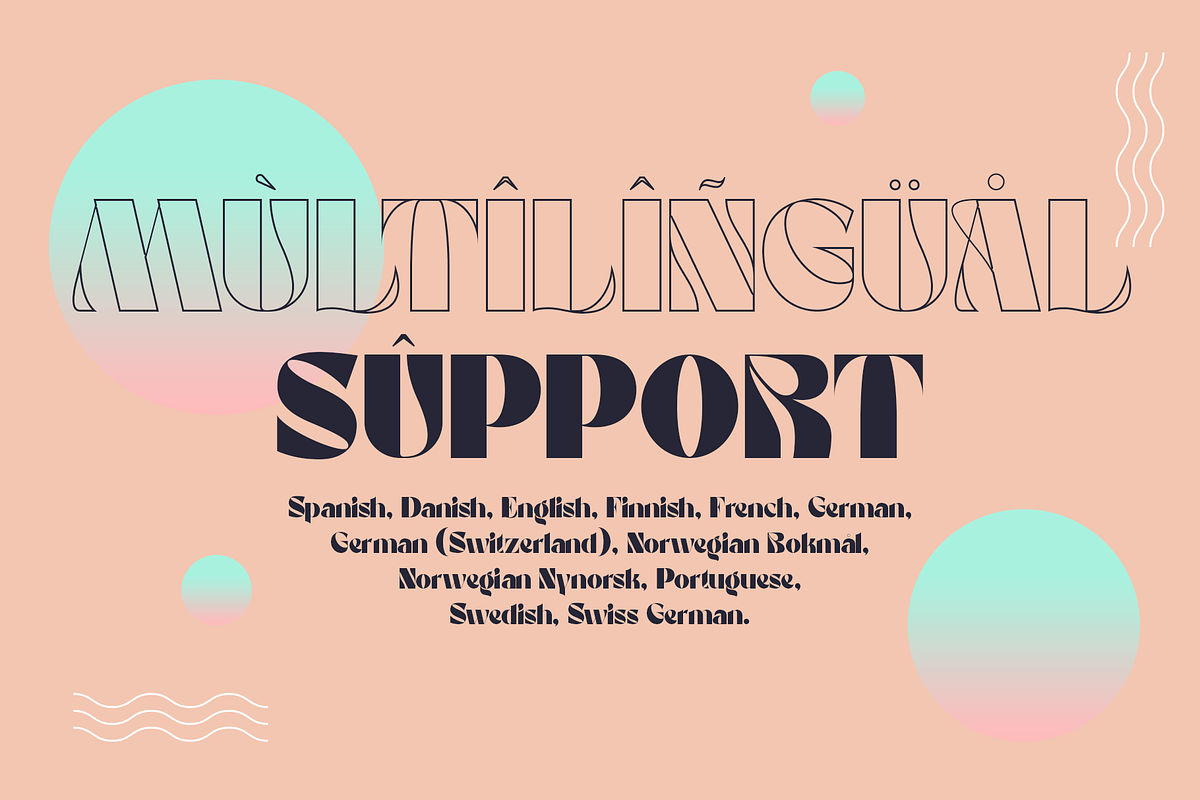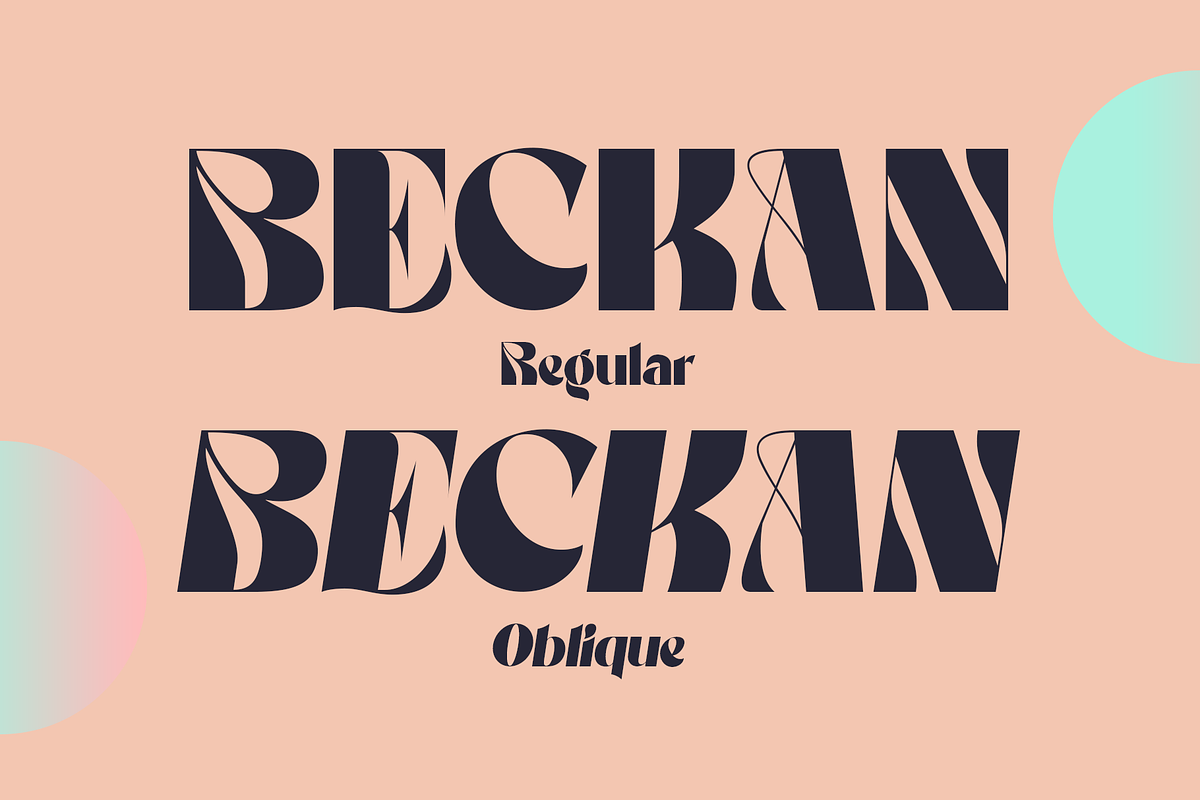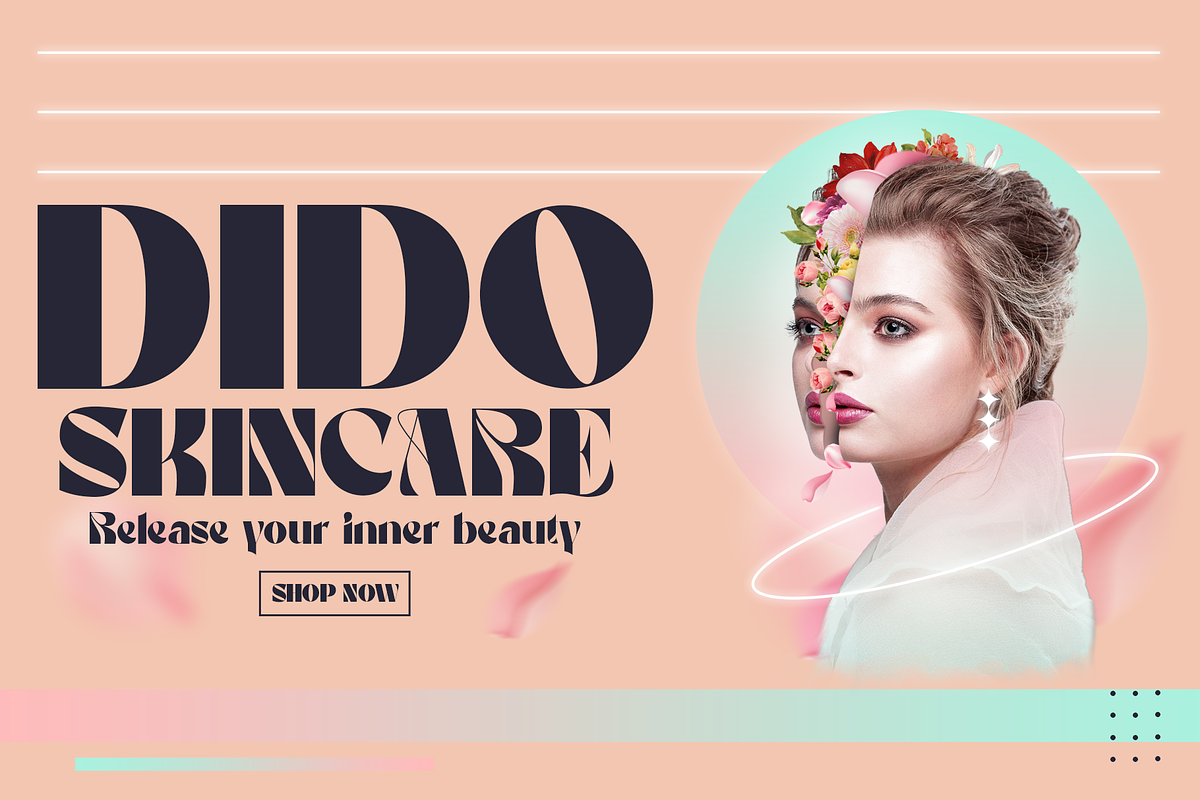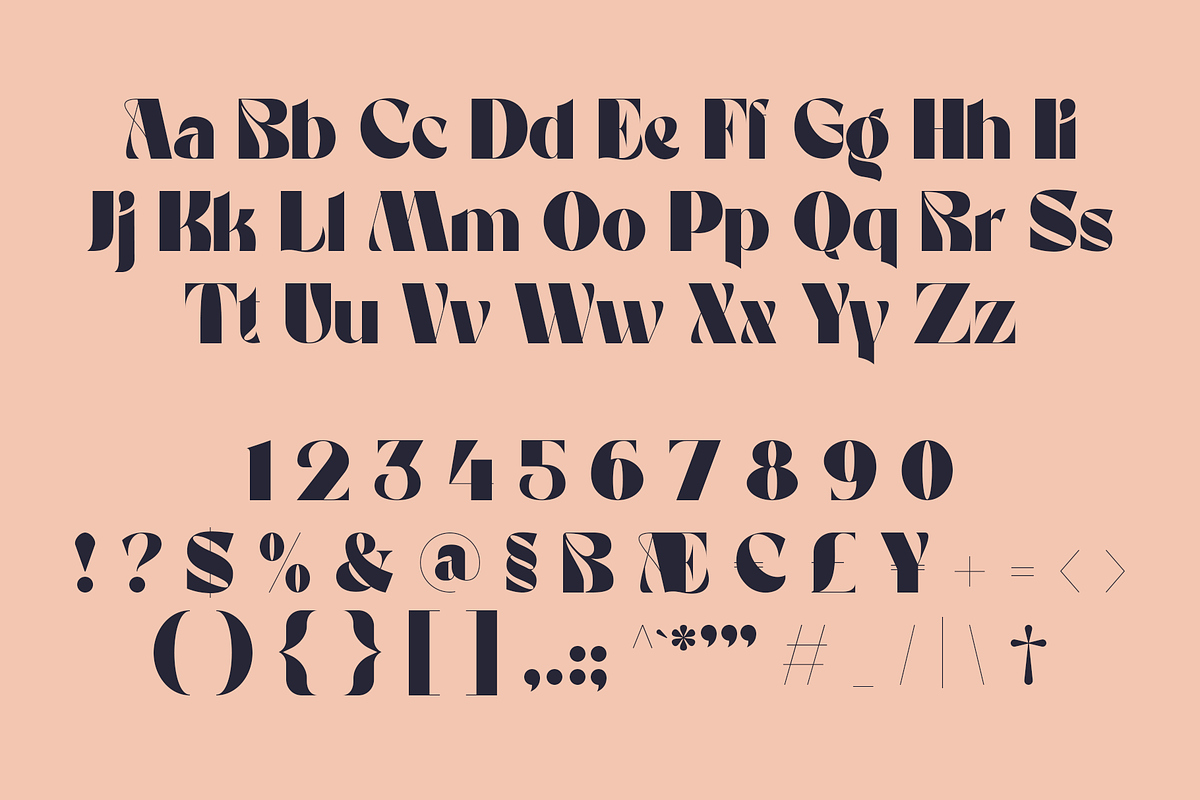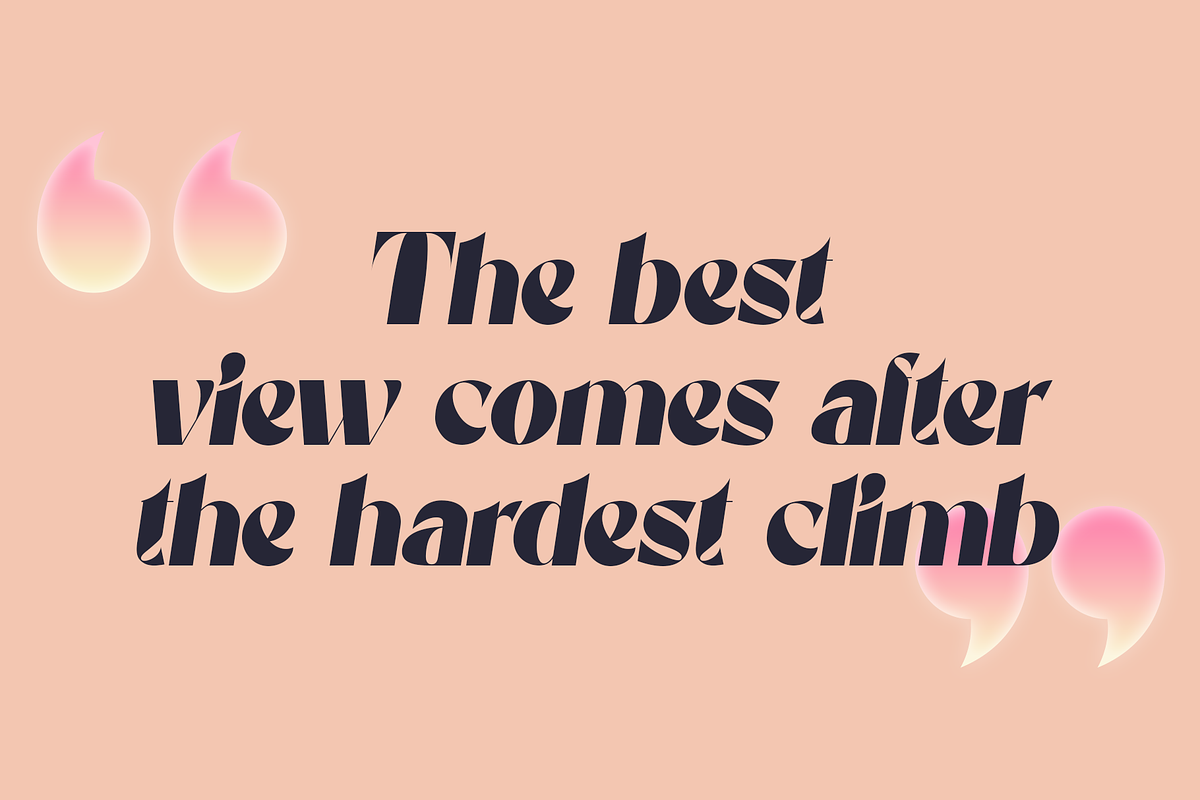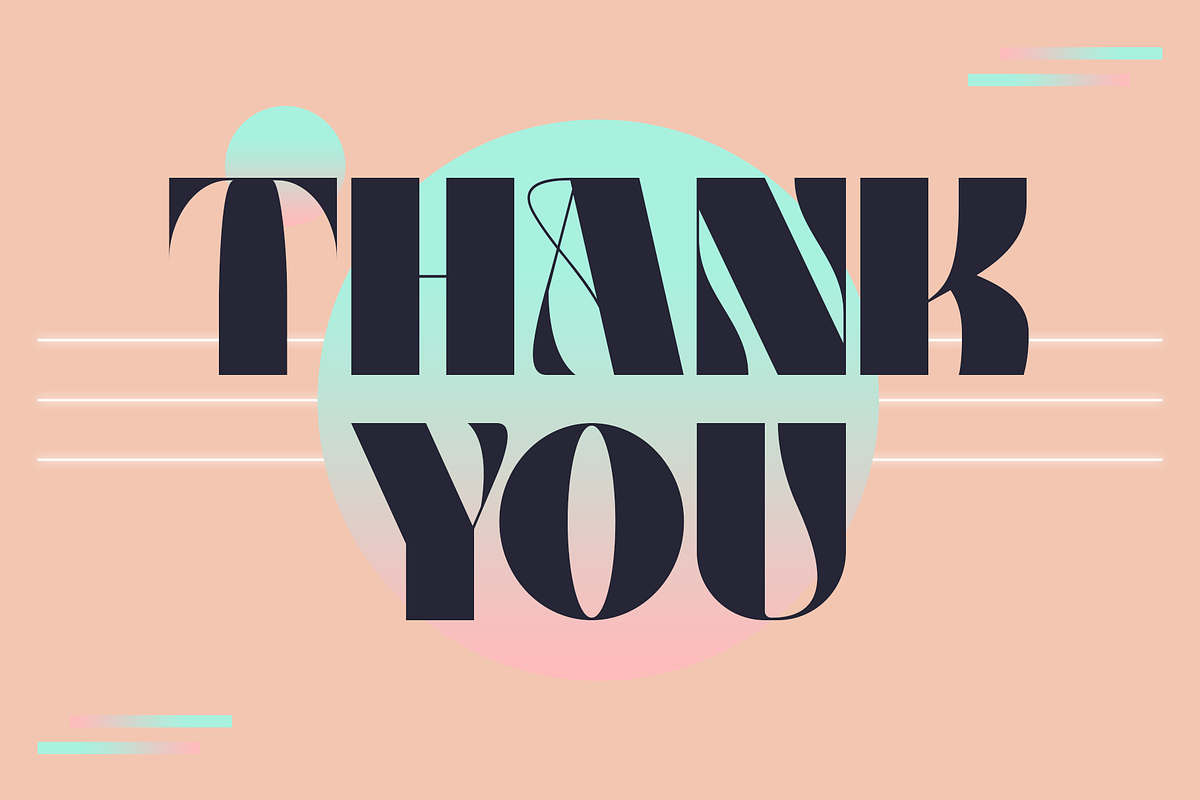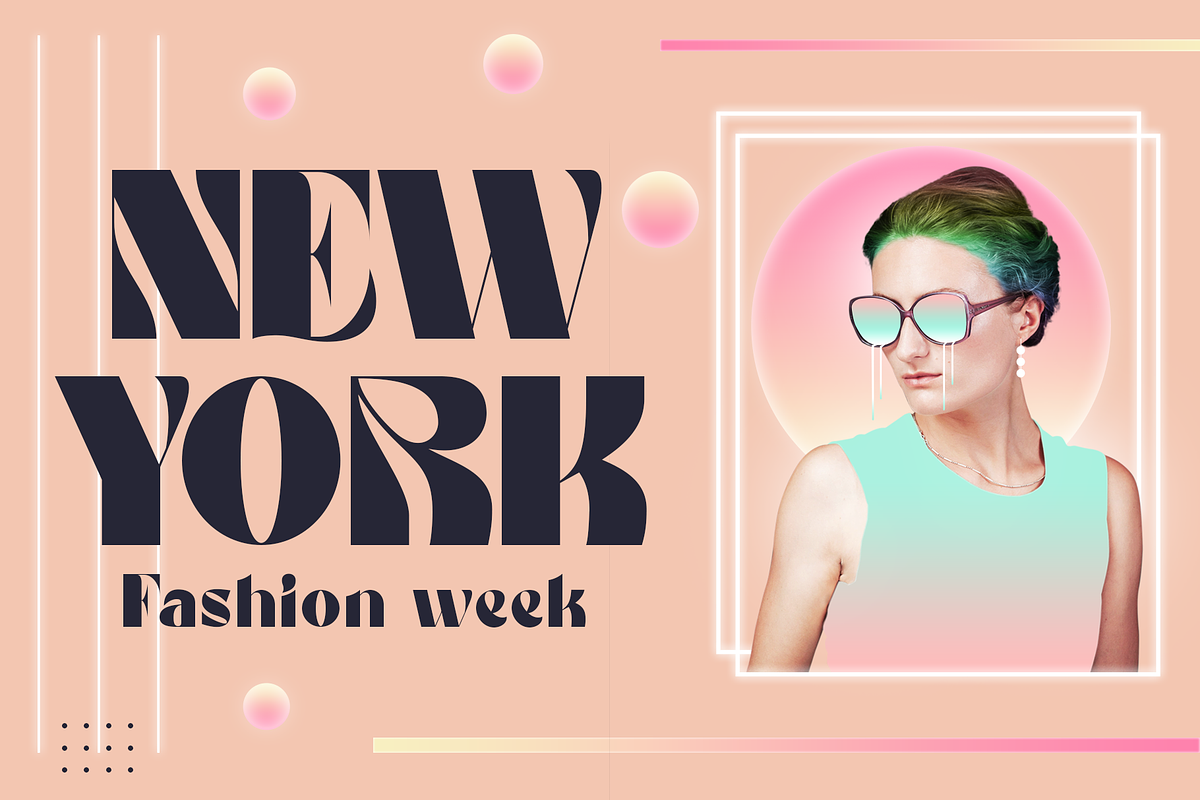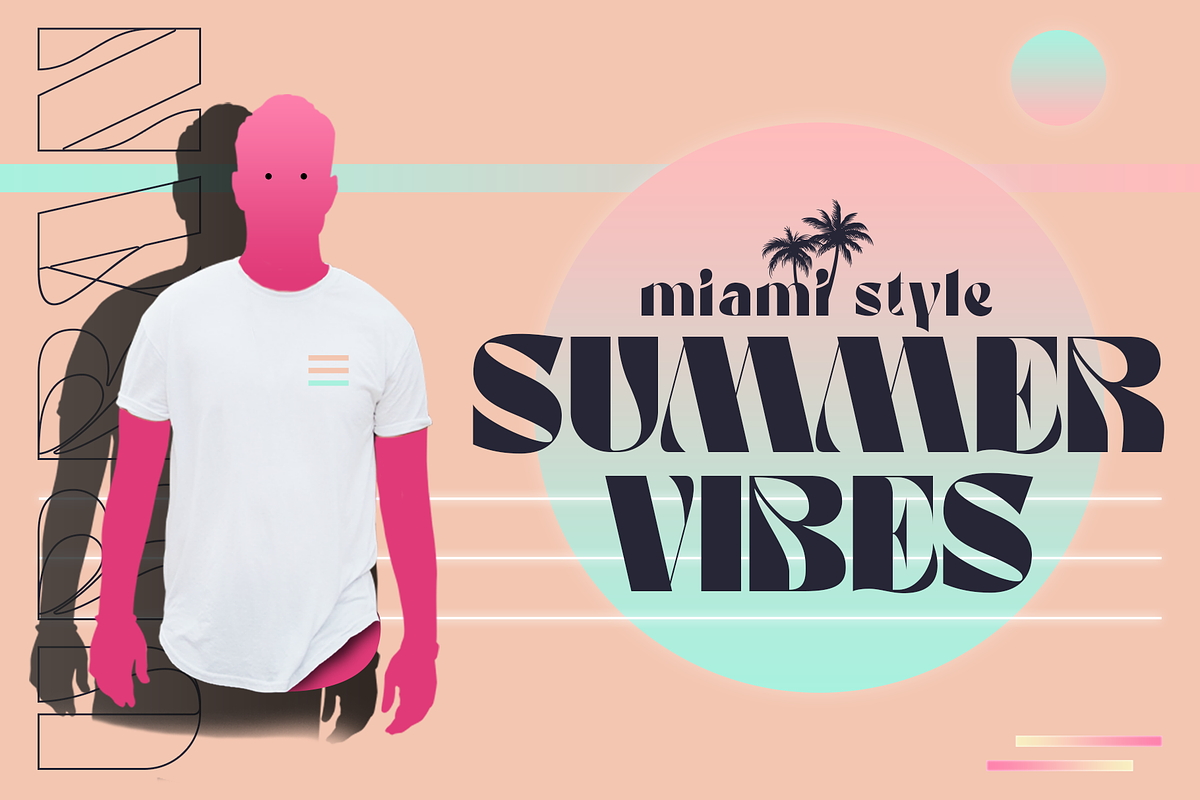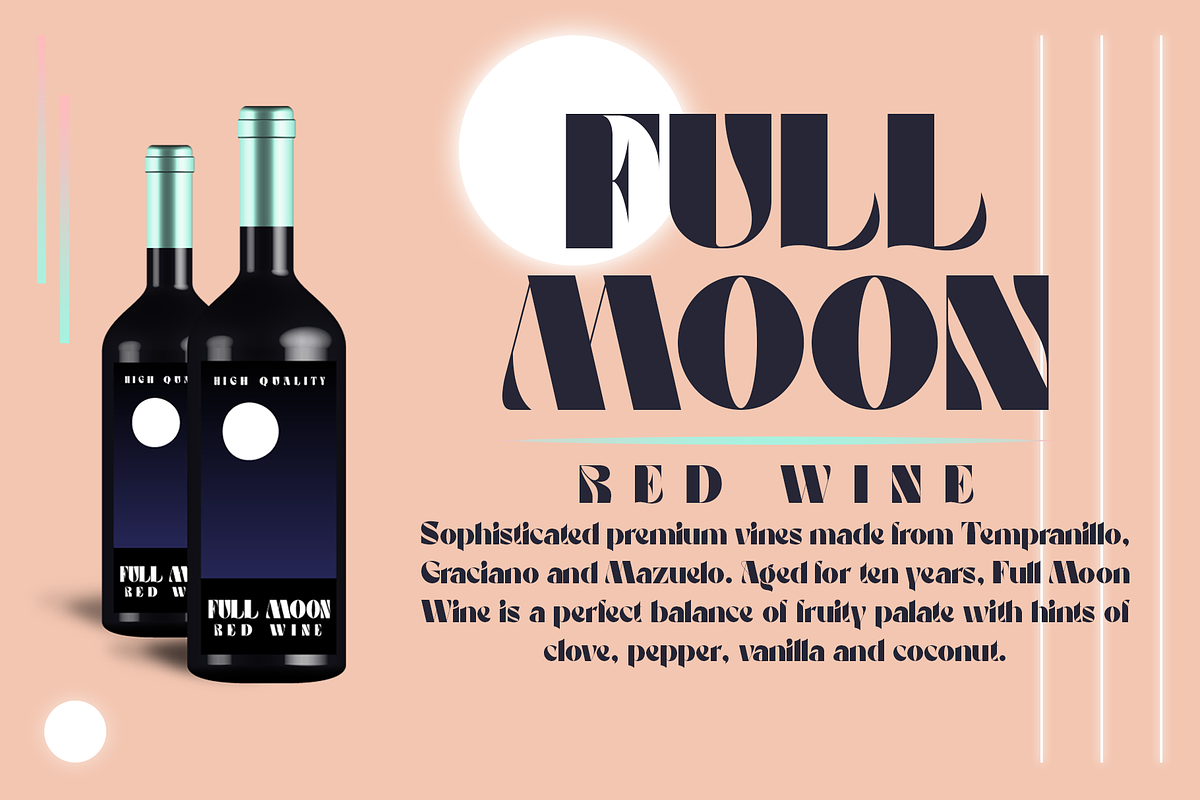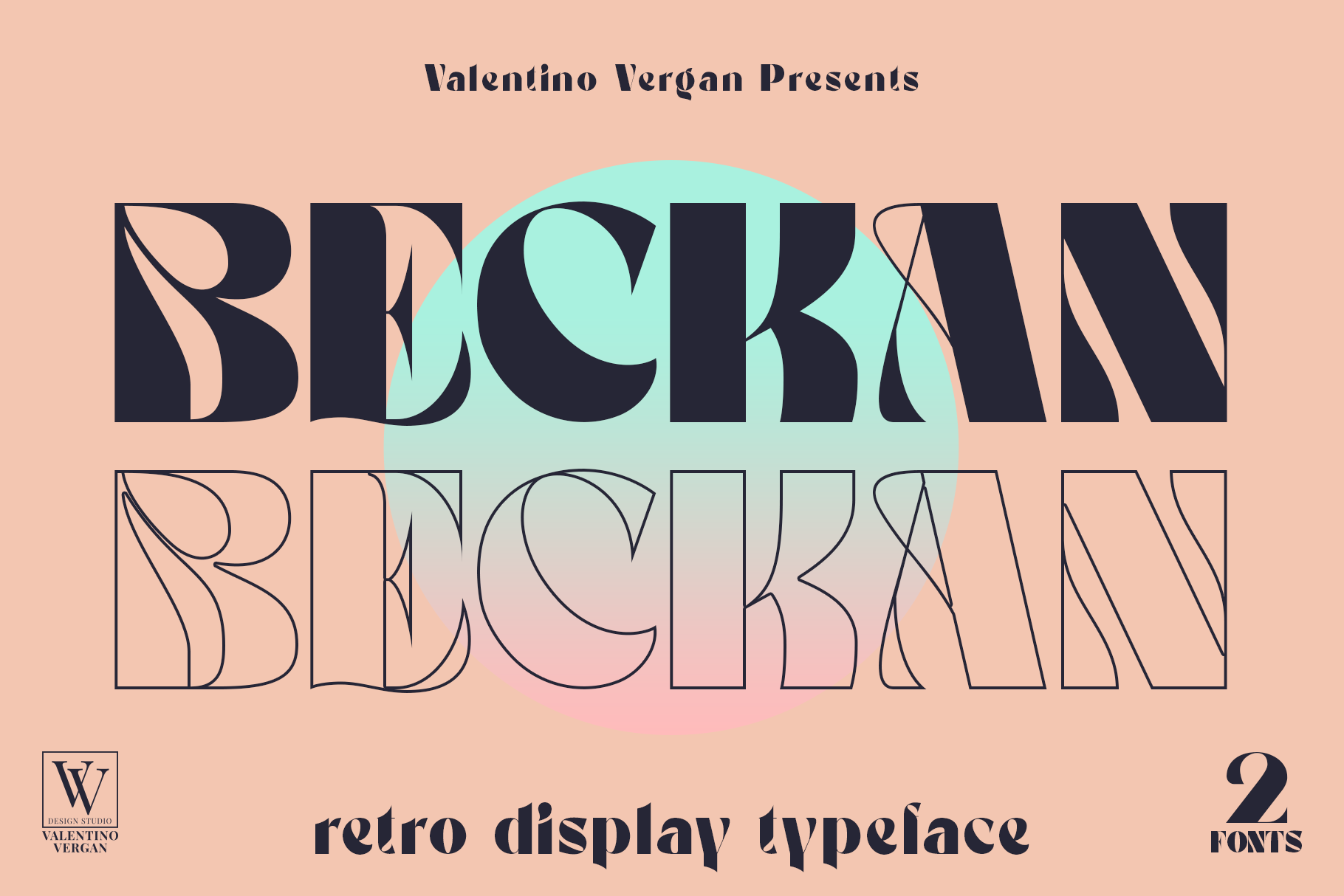
Beckan - Retro Typeface
Beckan is a retro inspired typeface, which leans towards the Art Nouveau style. The Beckan typeface has a high-contrast and a thin hairline, this gives the typeface a bold and modern retro look. The Beckan typeface comes in two styles, Regular and Oblique.
The Beckan typeface can be paired with a minimal sans serif or light script font, this combination will give your next project a unique look.
The Beckan typeface is very versatile and can cover a wide range of project such as: branding, mastheads, magazines, logos, facebook banners, Instagram posts, websites, blog posts, pull quotes, product packaging, advertisements and much more.
If you are looking for something bold and retro for you next project, Beckan is the font for you.
BECKAN INCLUDES A FULL SET OF:
- Uppercase and lowercase letters.
- Numbers.
- Punctuation.
- Ligatures.
- Alternate characters.
- Multilingual Symbols.